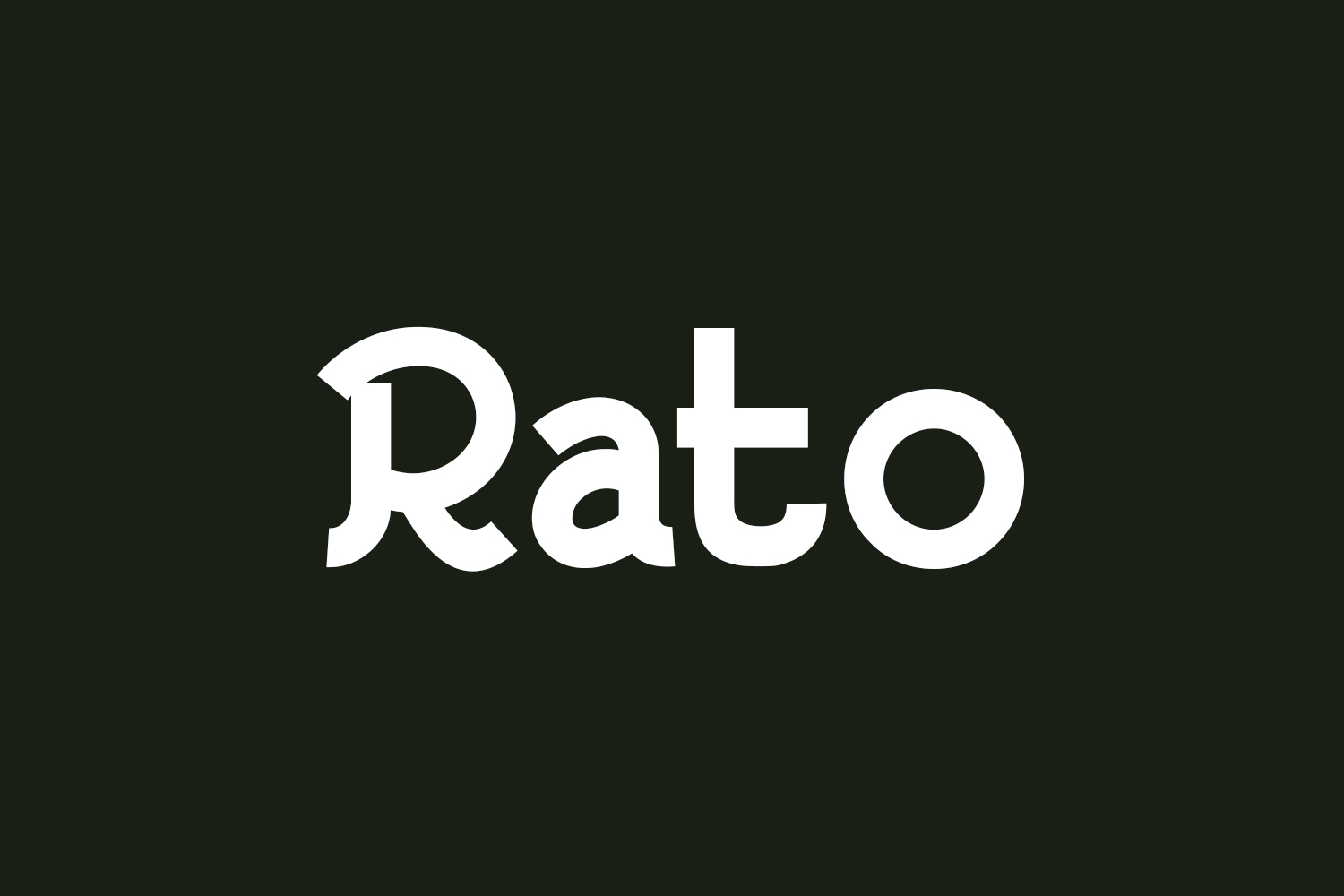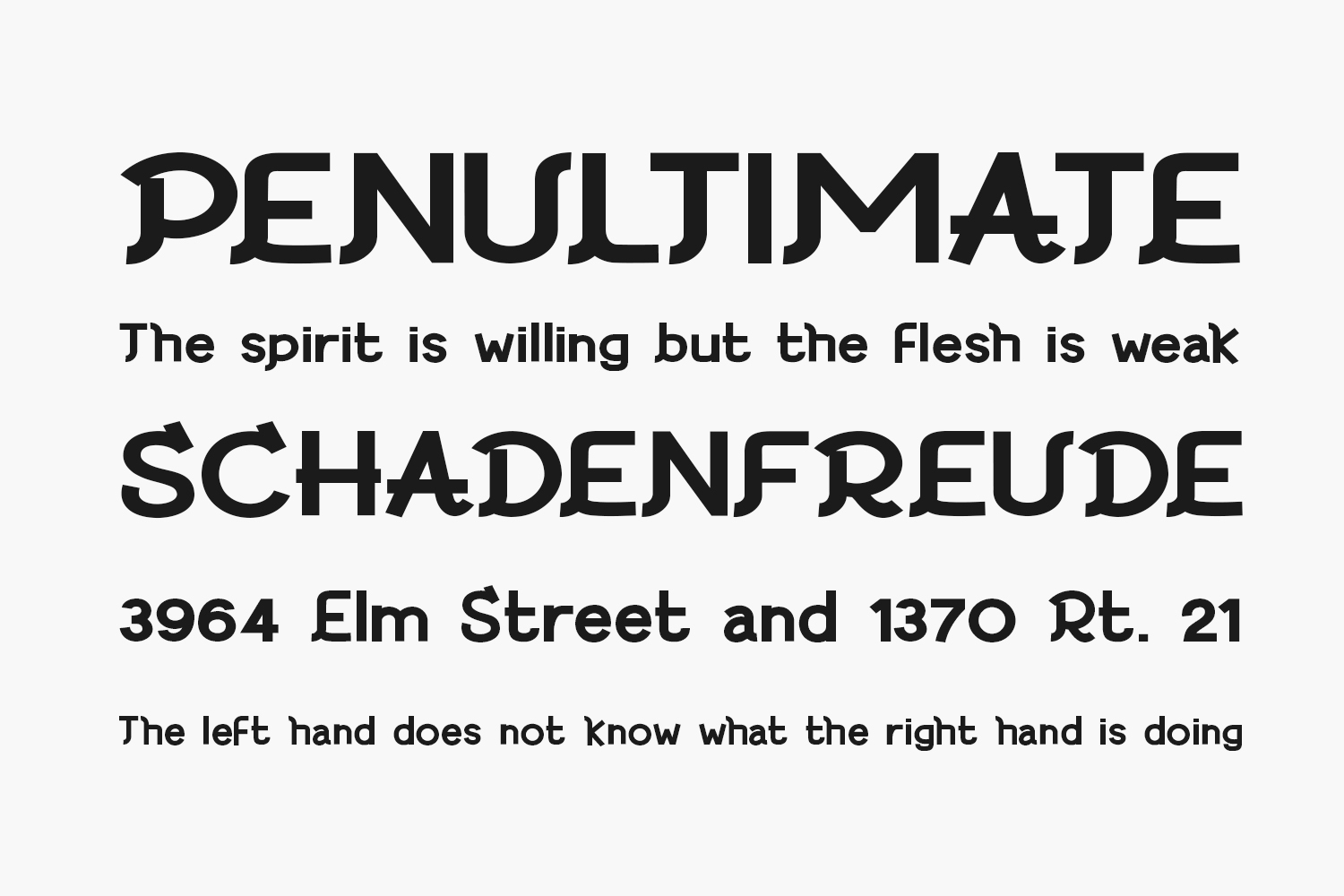
Discover Rato Free Font, a pristine, distinctive, and contemporary sans-serif typeface. Its polished and delicate design exudes a sense of sophistication and femininity, making it an ideal choice for feminine branding concepts. With its versatility, Rato can effortlessly complement a wide range of creative projects. Incorporate it into your ideas and witness how it elevates their visibility. Rato Free Font is free for personal use only. Please purchase the full version for commercial use.